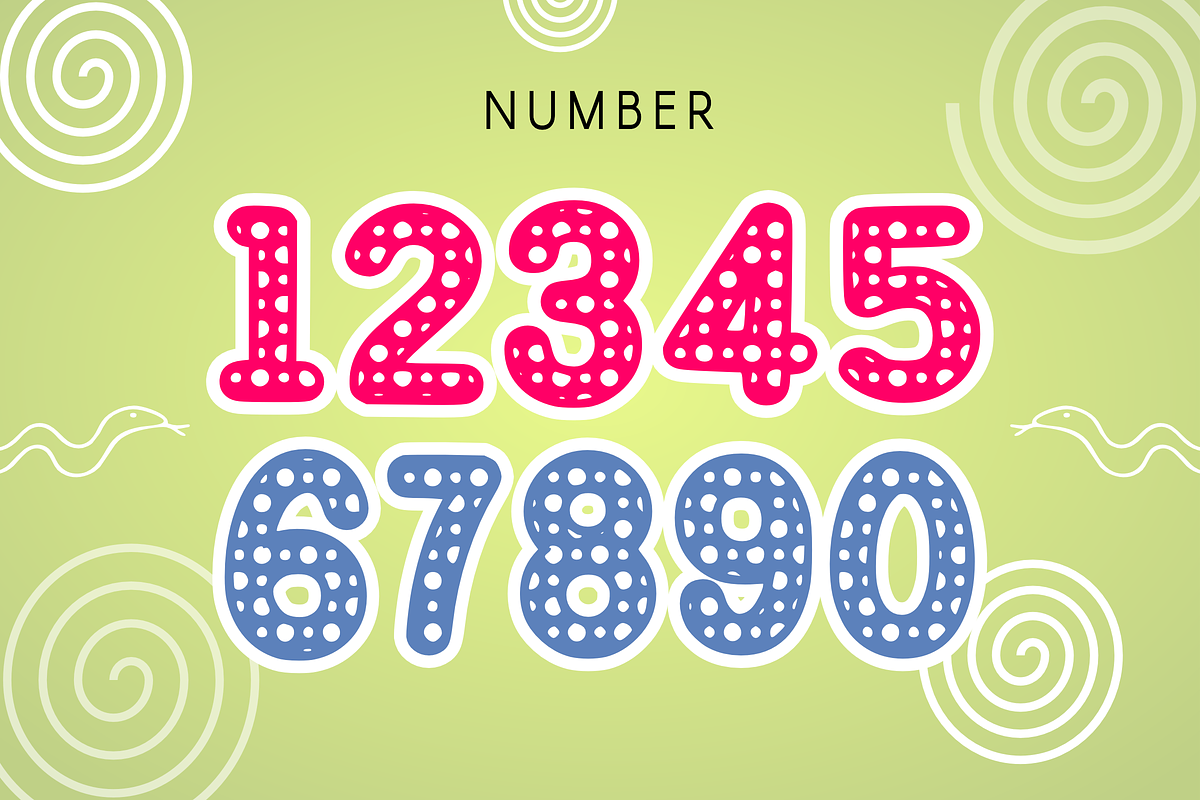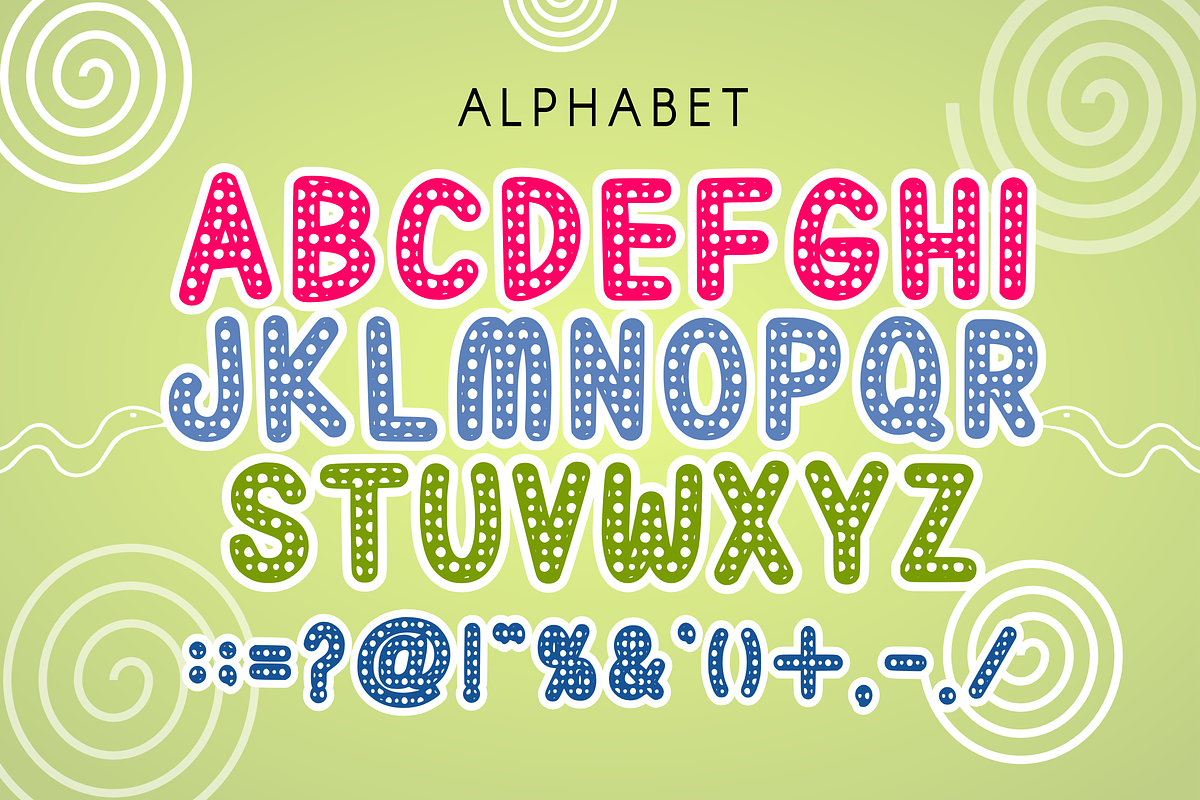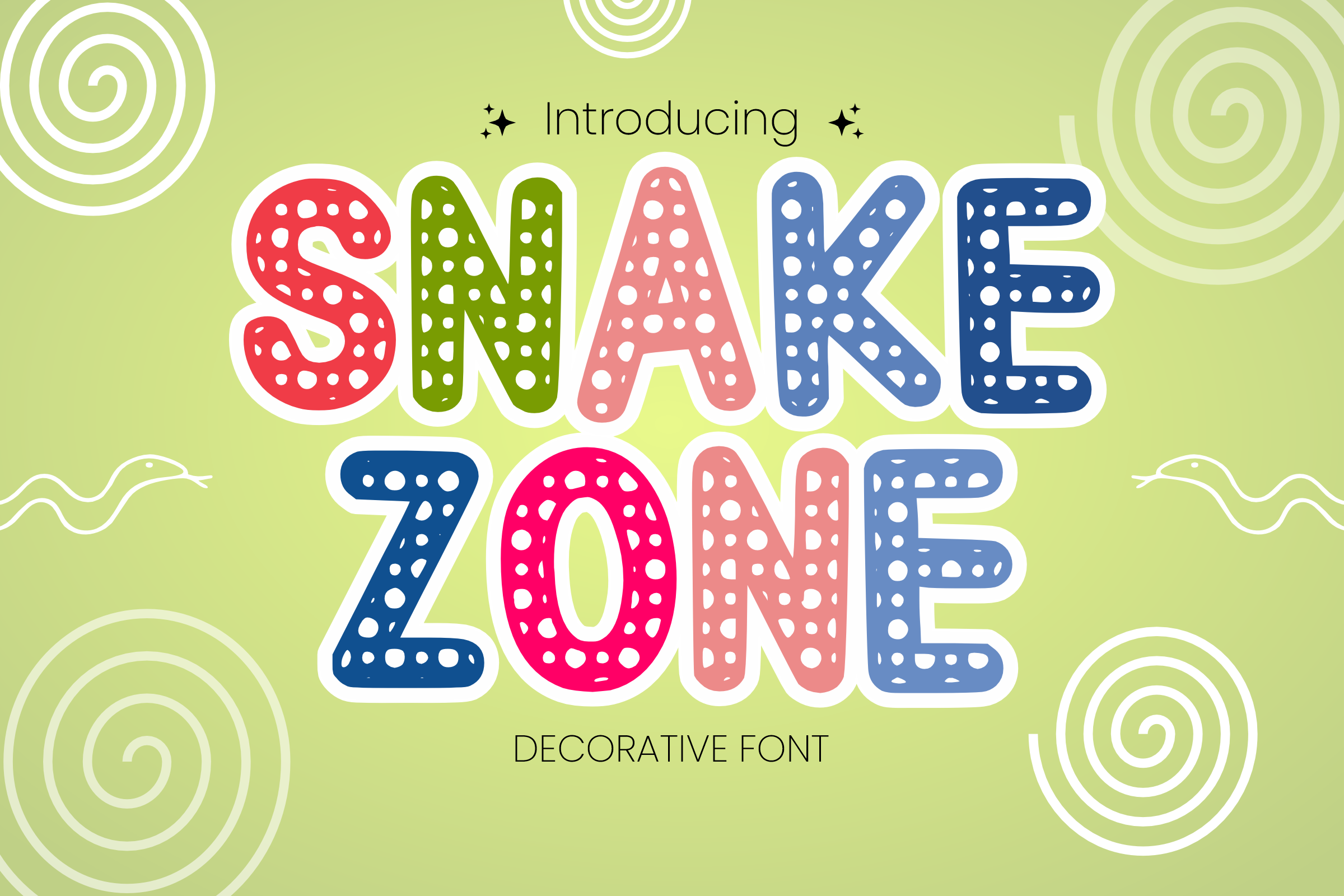
Snake Zone - Animal Font Types
Introducing "Snake Zone" which is a stunning animal font type, each character is filled with wavy texture. Perfect for making comics, t-shirt screen printing, stickers, and more.